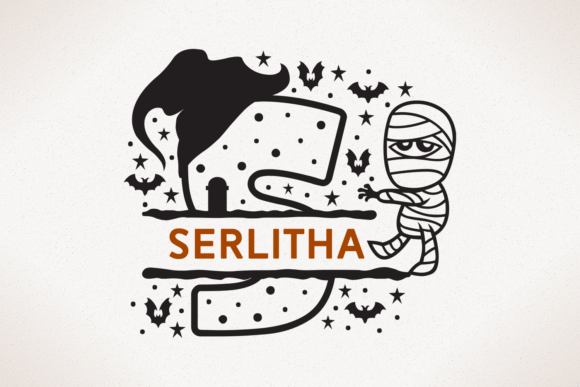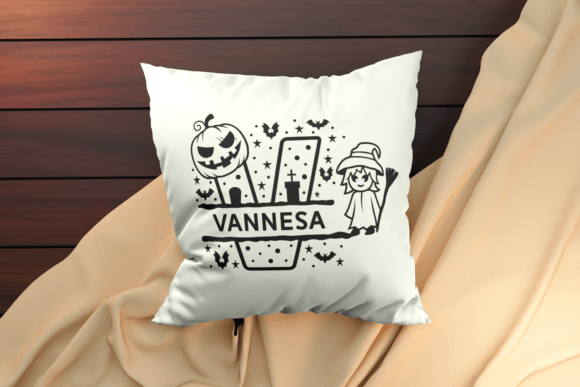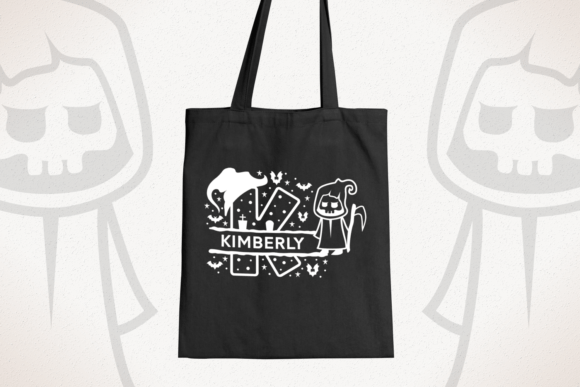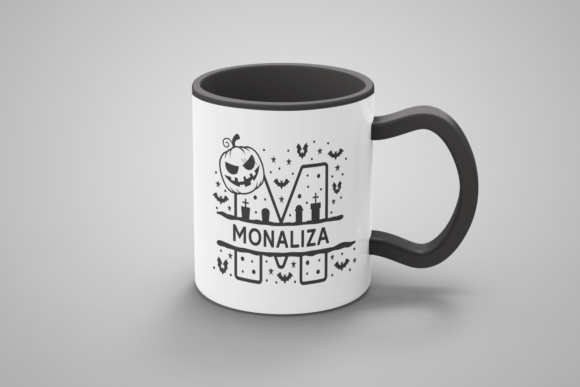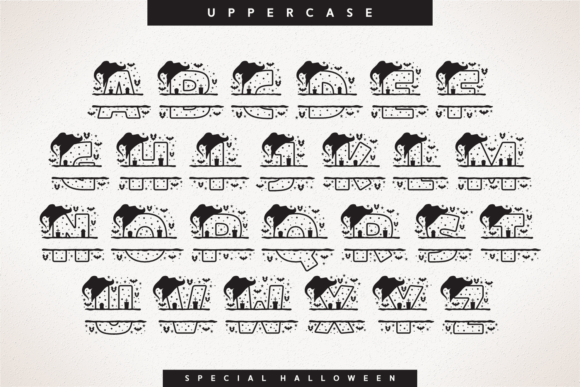
Cemetery Font: The Spookiest Font for Halloween Decorations
Are you looking for a font that captures the essence of Halloween? Look no further than Cemetery Font, a fun and spooky font perfect for creating festive decorations and themed invitations. With its decorative style featuring witch and pumpkin shapes, Cemetery Font is sure to add a touch of eerie elegance to your Halloween projects.
What is Cemetery Font?
Cemetery Font is a unique and creative font designed specifically for Halloween. Its decorative style is inspired by the spooky and supernatural elements of the holiday, making it perfect for creating festive decorations, invitations, and other Halloween-themed projects. The font features witch and pumpkin shapes, adding a playful and whimsical touch to your designs.
Features of Cemetery Font
- Decorative style: Cemetery Font has a decorative style that is perfect for creating festive and eye-catching designs.
- Witch and pumpkin shapes: The font features witch and pumpkin shapes, adding a playful and whimsical touch to your designs.
- Spooky and supernatural elements: Cemetery Font is inspired by the spooky and supernatural elements of Halloween, making it perfect for creating Halloween-themed projects.
- Perfect for festive decorations and themed invitations: Cemetery Font is great for creating festive decorations, invitations, and other Halloween-themed projects.
Uses of Cemetery Font
Cemetery Font is a versatile font that can be used for a variety of Halloween-themed projects, including:
- Halloween invitations: Create spooky and festive invitations for Halloween parties and events.
- Festive decorations: Use Cemetery Font to create festive decorations, such as banners, signs, and garlands.
- Halloween-themed crafts: Cemetery Font is perfect for creating Halloween-themed crafts, such as pumpkin carvings, ghostly decorations, and spooky centerpieces.
- Social media graphics: Use Cemetery Font to create spooky and festive social media graphics, such as Halloween-themed Facebook posts and Instagram stories.
Tips for Using Cemetery Font
Here are some tips for using Cemetery Font:
- Use it sparingly: Cemetery Font is a decorative font, so use it sparingly to add a touch of elegance and whimsy to your designs.
- Pair it with other fonts: Pair Cemetery Font with other fonts, such as a sans-serif font, to create a unique and eye-catching design.
- Experiment with colors: Experiment with different colors, such as orange, black, and purple, to create a spooky and festive design.
- Have fun: Most importantly, have fun and be creative with Cemetery Font!
Cemetery Font is a fun and spooky font perfect for Halloween decorations and themed invitations. With its decorative style featuring witch and pumpkin shapes, Cemetery Font is sure to add a touch of eerie elegance to your Halloween projects. Whether you’re a designer or a crafter, Cemetery Font is a great addition to your font collection. So why not give it a try and see what spooky and festive designs you can create?